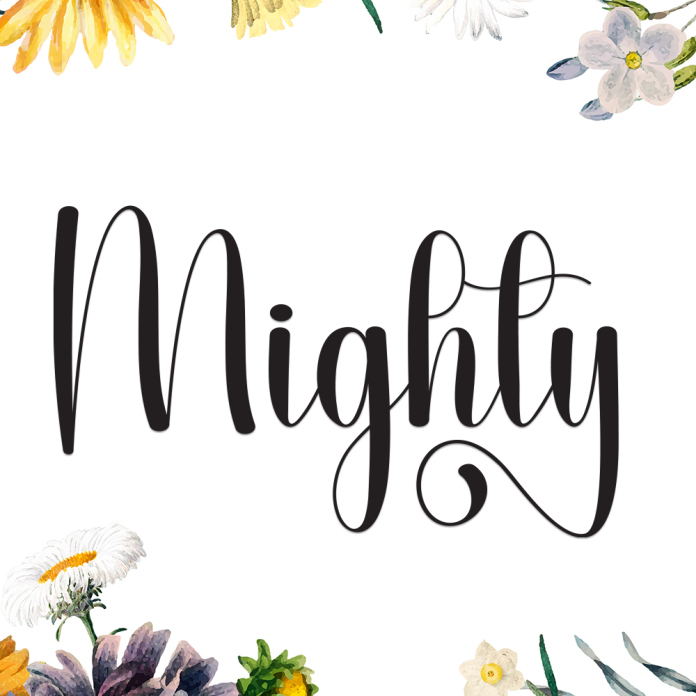
Mighty is a bold and confident handwriting font with dynamic strokes that bring energy and personality to your designs. Each letter is crafted to look natural yet powerful, making it perfect for projects that demand a strong handwritten touch.
Bold handwriting style with expressive strokes
Ideal for logos, posters, branding, and inspirational quotes
Natural letterflow with a handcrafted feel
Make your words stand out with the bold charm of Mighty.